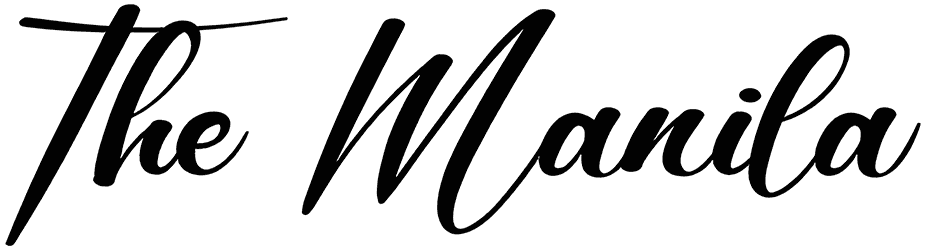
The Manila Font
Weren’t you worried that your logo is either too luxurious or too casual? Well, this is how you can be both without overdoing it, by downloading The Manila for your professional text customization right now.
Some of the best places to add this calligraphy font are on your business cards as a chef, photographer, author, fashion stylist, diet consultant, and of course, anything else you have in mind. The artistic potential of this nice cursive font is limitless after all.
The Manila is a round-lettered script font. It has a modern yet whimsical style and it will undoubtedly immerse your designs into a magical world.